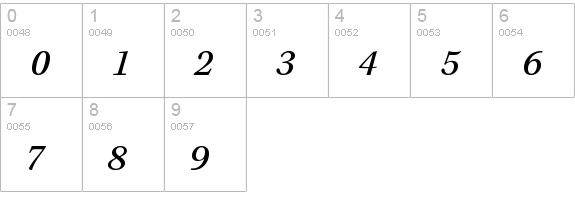
Kepler Std Italic Caption Font Details
Kepler Std Italic Caption is a distinctive, italic variant in the Kepler typeface family \xE2\x80\x94 well suited to design and typography projects.
Kepler Std Italic Caption is a sophisticated and elegant font that exudes a sense of refined beauty. It is the perfect choice for those looking to add a touch of sophistication to their design projects. The italicized characters lend a sense of movement and grace, making this font ideal for captions and headings. With its clean and crisp lines, Kepler Std Italic Caption effortlessly conveys a sense of professionalism and modernity. Its slim and delicate letterforms have been meticulously crafted to ensure legibility and clarity, even at small sizes. This makes it a versatile font that can be used across a wide range of applications, from print to digital media. What sets Kepler Std Italic Caption apart is that it is available for free download at FontsMarket.com. This means that designers and enthusiasts alike can access this stunning font without any cost. Whether you're working on a personal project or a commercial endeavor, this font is a valuable asset that can elevate your designs to new heights. So why wait? Download Kepler Std Italic Caption today and explore the endless creative possibilities it offers. With its timeless appeal and freely available nature, this font is a must-have for any design toolkit. Let Kepler Std Italic Caption be the finishing touch that brings your designs to life.